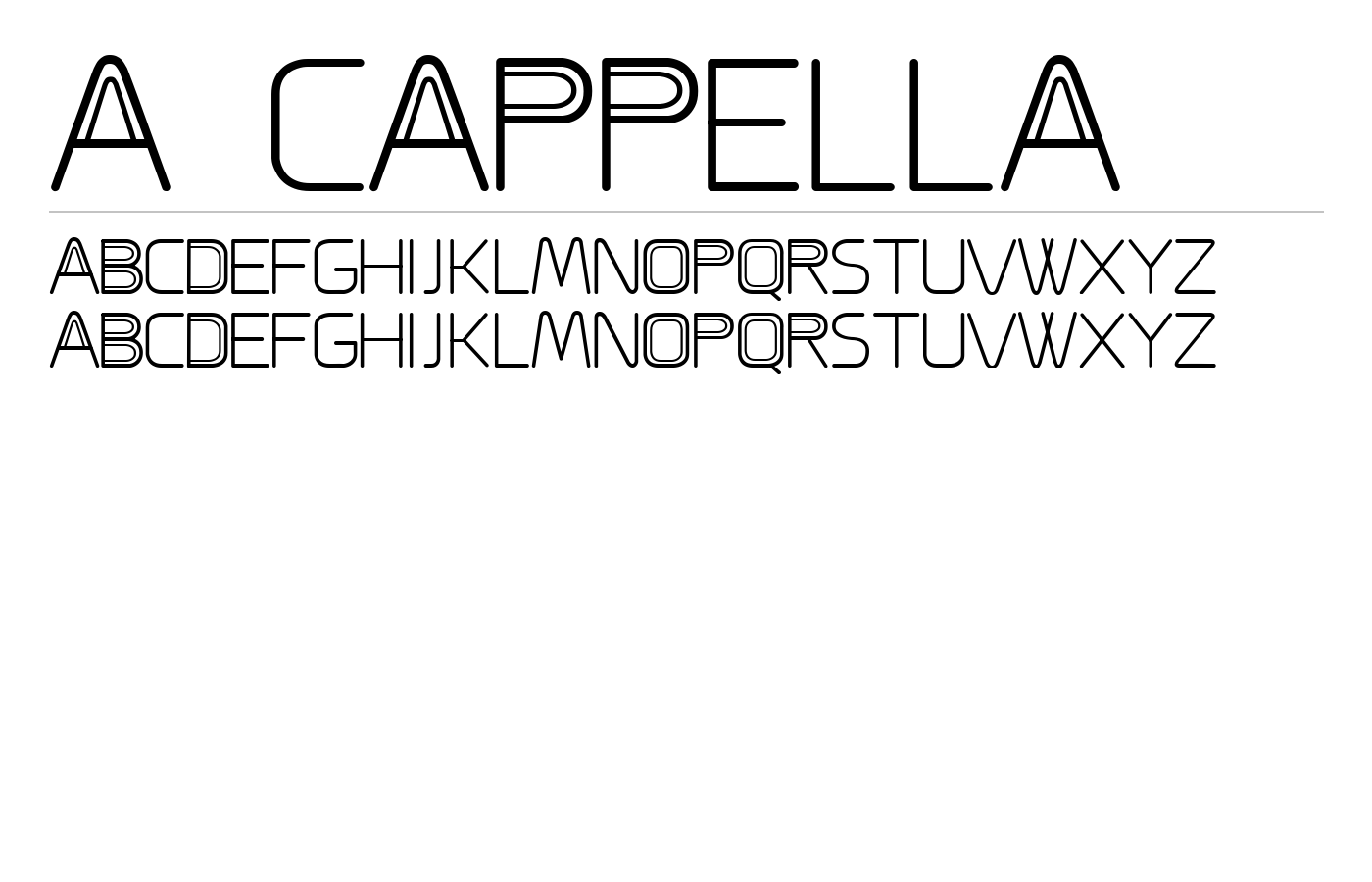
A CAPPELLA is a sleek, modern sans serif font with a thin, geometric style that features tall, condensed letterforms and clean, sharp lines. Its minimal stroke contrast and distinctive letter shapes give it a futuristic and elegant feel, making it ideal for contemporary branding, tech-focused logos, and stylish headlines where a refined, cutting-edge look is desired.
A CAPPELLA Font